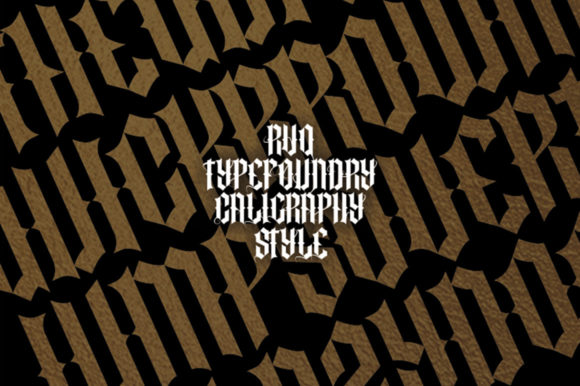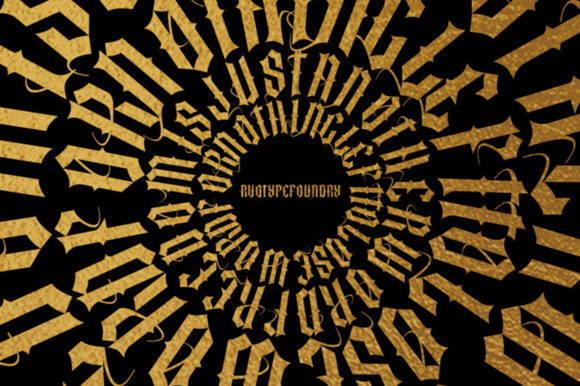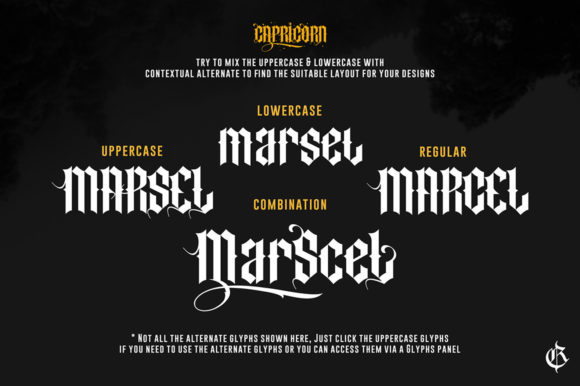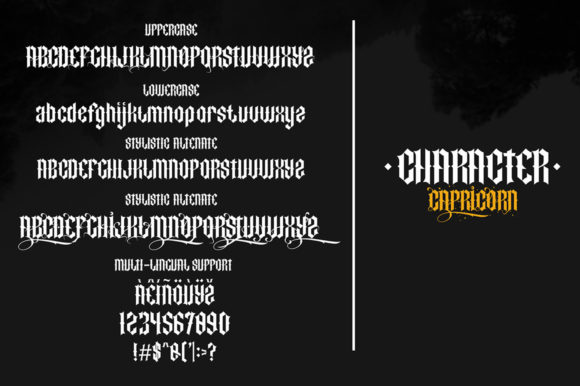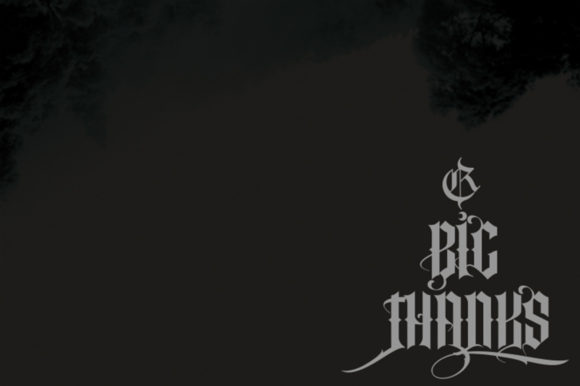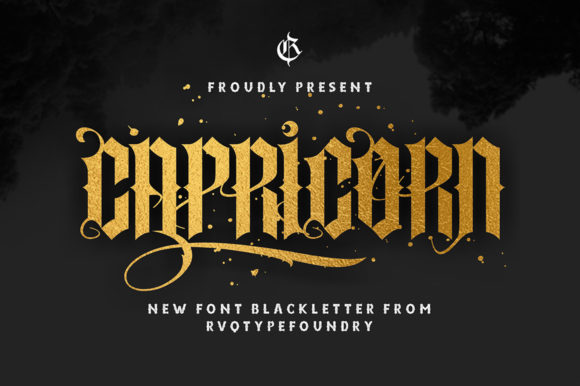
Introducing Capricorn Font: Elevate Your Designs with Elegance and Sophistication
Are you a designer or crafter looking for a font that exudes power, sophistication, and a touch of vintage charm? Look no further than Capricorn Font, a classy and elegant blackletter font that’s sure to take your designs to the next level. With its unique blend of traditional and modern elements, Capricorn Font is the perfect choice for anyone seeking to create a lasting impression.
The Characteristics of Capricorn Font
Capricorn Font is a blackletter font that boasts a distinctive, vintage feel. Its elegant lines, intricate details, and classic style make it an ideal choice for designers who want to add a touch of sophistication to their work. Whether you’re creating a logo, a poster, or a digital graphic, Capricorn Font is sure to bring a level of refinement and poise to your design.
One of the standout features of Capricorn Font is its versatility. It can be used for a wide range of design projects, from formal and corporate to creative and artistic. Its unique blend of traditional and modern elements makes it an excellent choice for designers who want to create a design that’s both timeless and contemporary.
The Benefits of Using Capricorn Font
So why choose Capricorn Font for your design projects? Here are just a few benefits of using this exceptional font:
- Elegance and Sophistication: Capricorn Font exudes power, sophistication, and elegance, making it perfect for designs that require a level of refinement and poise.
- Vintage Charm: With its classic lines and intricate details, Capricorn Font has a distinctive vintage feel that’s sure to add a touch of nostalgia and charm to your designs.
- Versatility: Capricorn Font can be used for a wide range of design projects, from formal and corporate to creative and artistic.
- Easy to Read: Despite its intricate details, Capricorn Font is surprisingly easy to read, making it perfect for designs that require a level of legibility.
How to Use Capricorn Font in Your Designs
Using Capricorn Font in your designs is easy. Here are a few tips to get you started:
- Pair it with a Sans-Serif Font: For a classic look, pair Capricorn Font with a sans-serif font. This will create a beautiful contrast between the elegant lines of the blackletter font and the clean lines of the sans-serif font.
- Use it for Headings and Titles: Capricorn Font is perfect for headings and titles. Its elegant lines and intricate details make it an excellent choice for designs that require a level of sophistication and refinement.
- Experiment with Colors: Capricorn Font looks stunning in a range of colors. Experiment with different shades and combinations to find the perfect look for your design.
Who Can Benefit from Using Capricorn Font?
Capricorn Font is perfect for a wide range of designers and crafters, including:
- Graphic Designers: Capricorn Font is a must-have for graphic designers who want to create elegant and sophisticated designs.
- Logotype Designers: With its unique blend of traditional and modern elements, Capricorn Font is perfect for logotype designers who want to create a lasting impression.
- Crafters: Capricorn Font is also perfect for crafters who want to add a touch of elegance and sophistication to their handmade projects.
In conclusion, Capricorn Font is a classy, elegant, and vintage feel blackletter font that’s sure to elevate your designs to the next level. With its unique blend of traditional and modern elements, versatility, and ease of use, Capricorn Font is the perfect choice for designers and crafters who want to create a lasting impression. So why wait? Download Capricorn Font today and start creating designs that inspire power and sophistication!